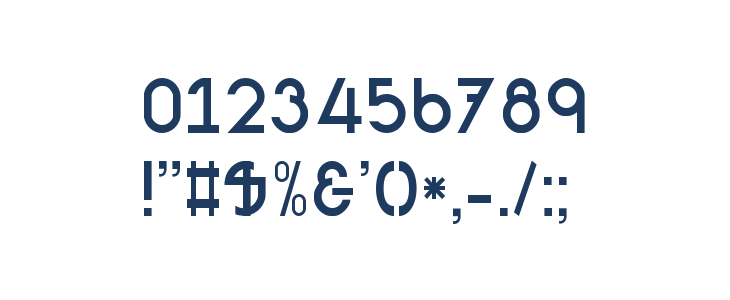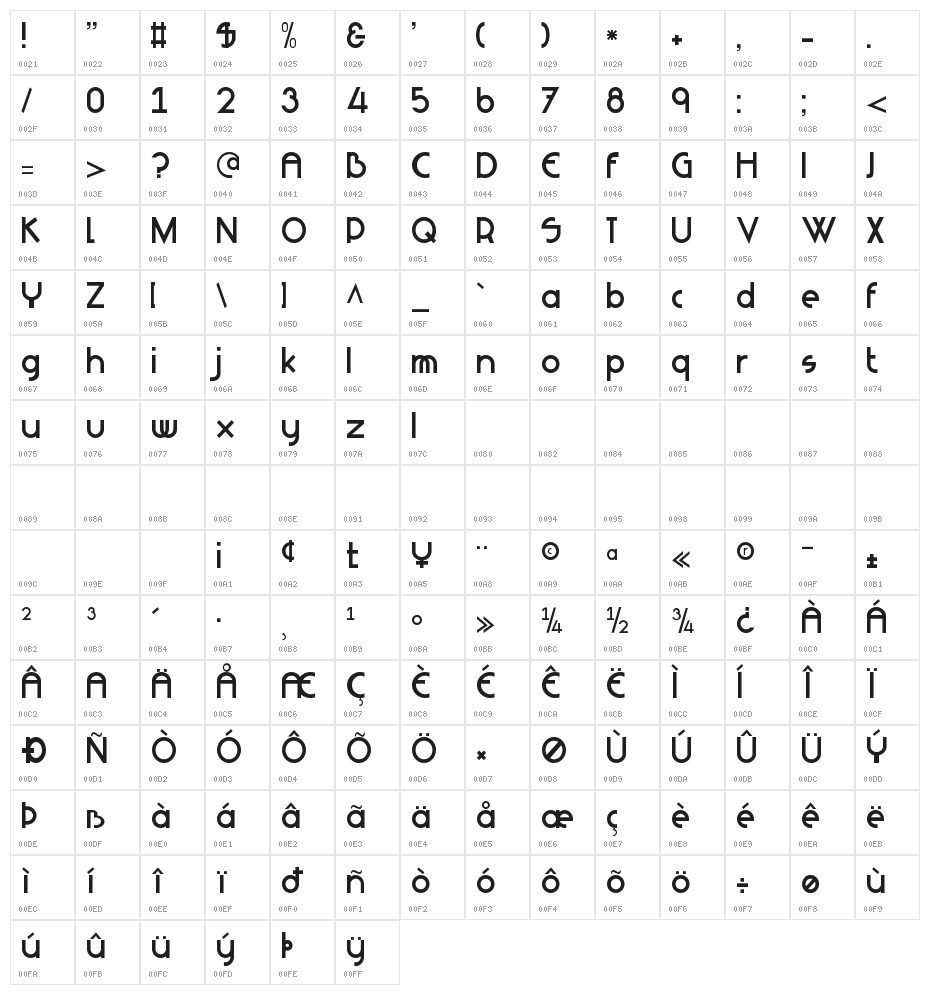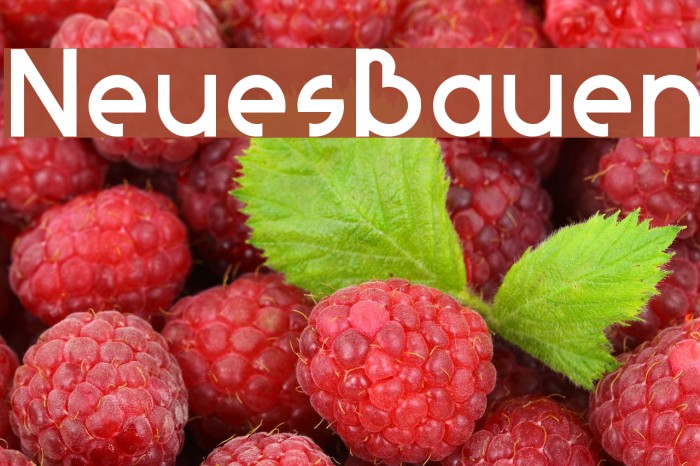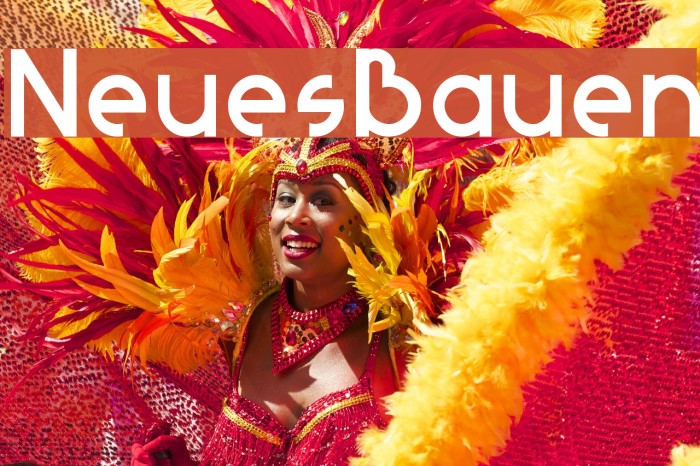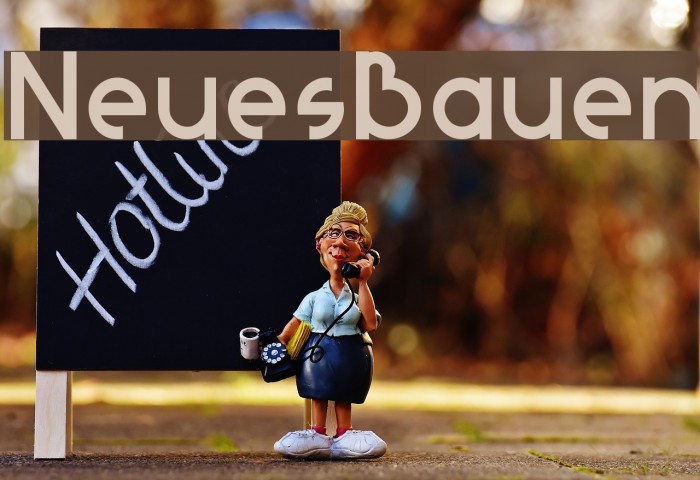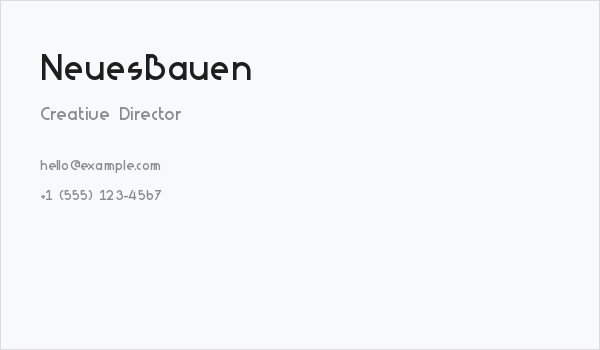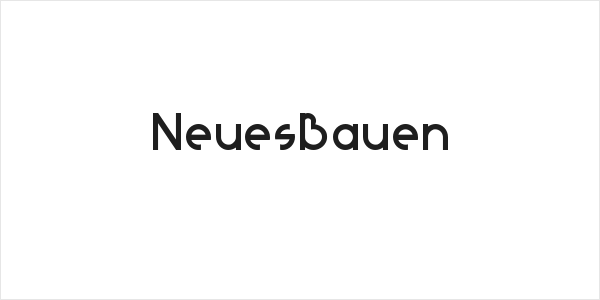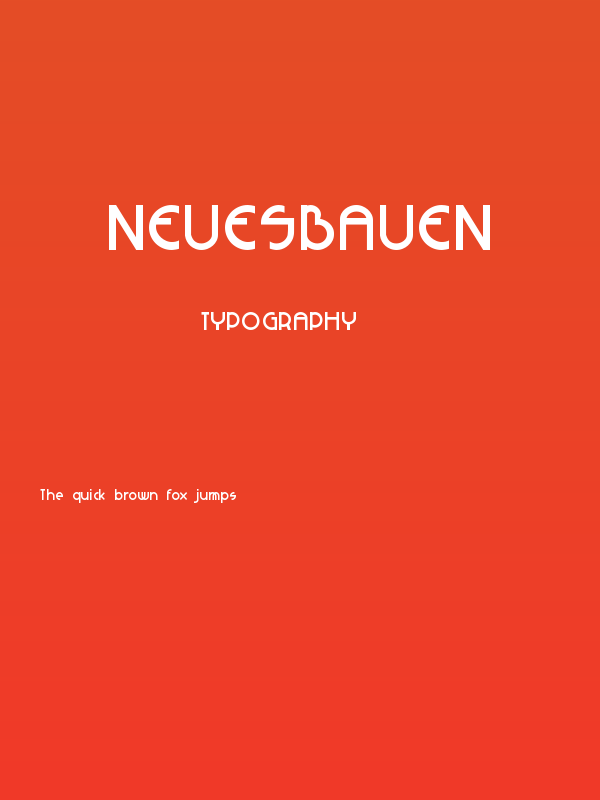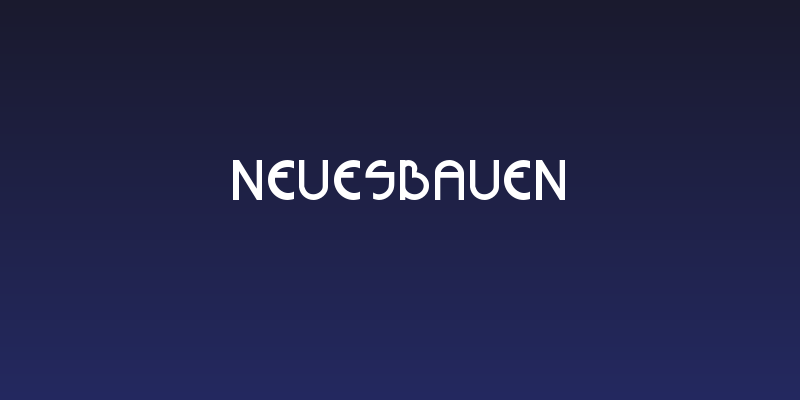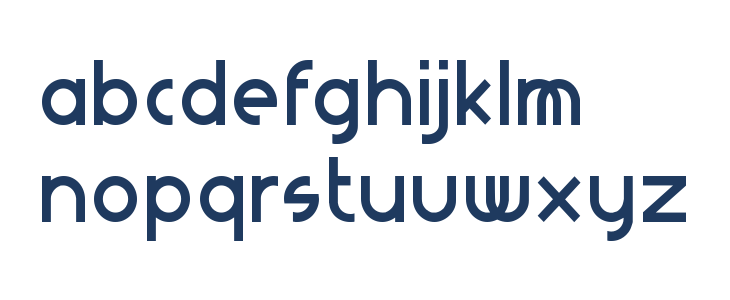
NeuesBauen Font
NeuesBauen Description
This font exhibits a modern and geometric style, characterized by clean lines and a structured appearance. The uppercase letters are bold and uniform, with a consistent height and width that convey a sense of stability and strength. The lowercase letters maintain a similar geometric form, with rounded edges that soften the overall look. Numbers are clear and easy to read, matching the style of the alphabet. Special characters are distinct and integrate seamlessly with the rest of the font, ensuring versatility in various applications. The font's design is both functional and aesthetically pleasing, making it suitable for a wide range of uses.
| Proposed Projects | Ideal for branding, advertising, posters, and web design projects that require a contemporary and professional look. |